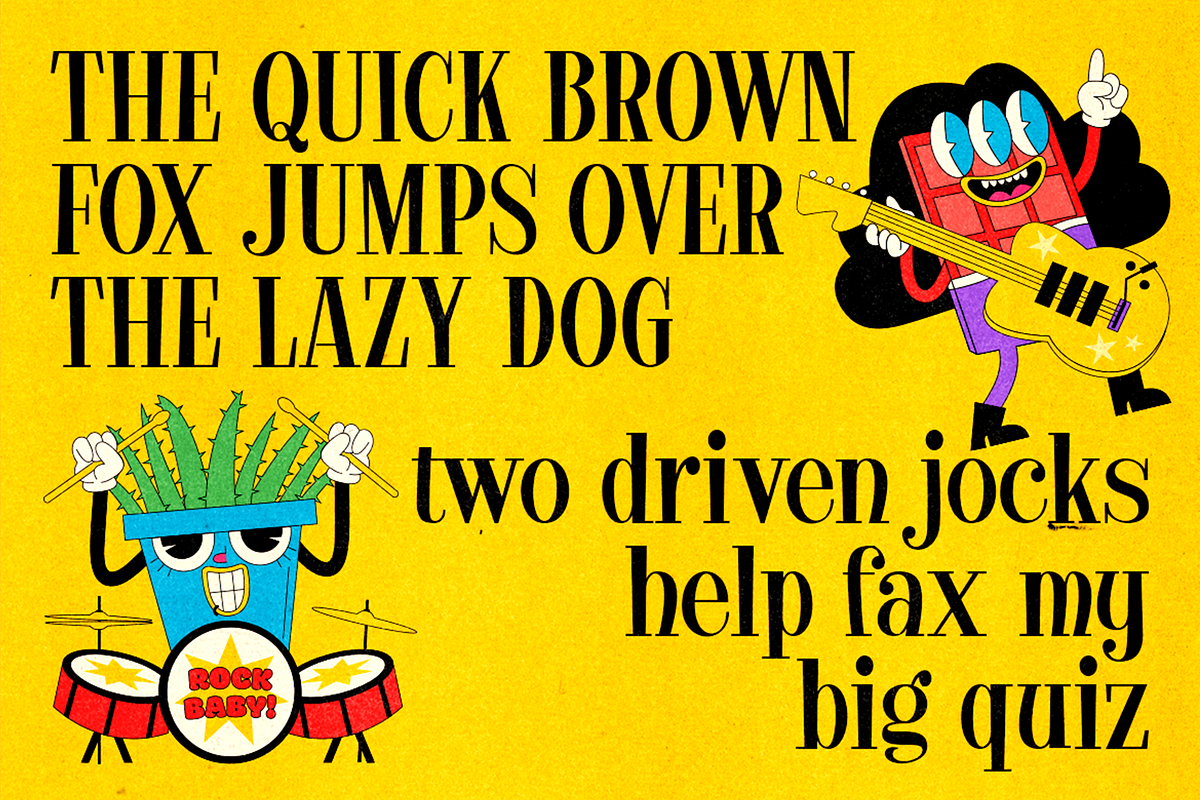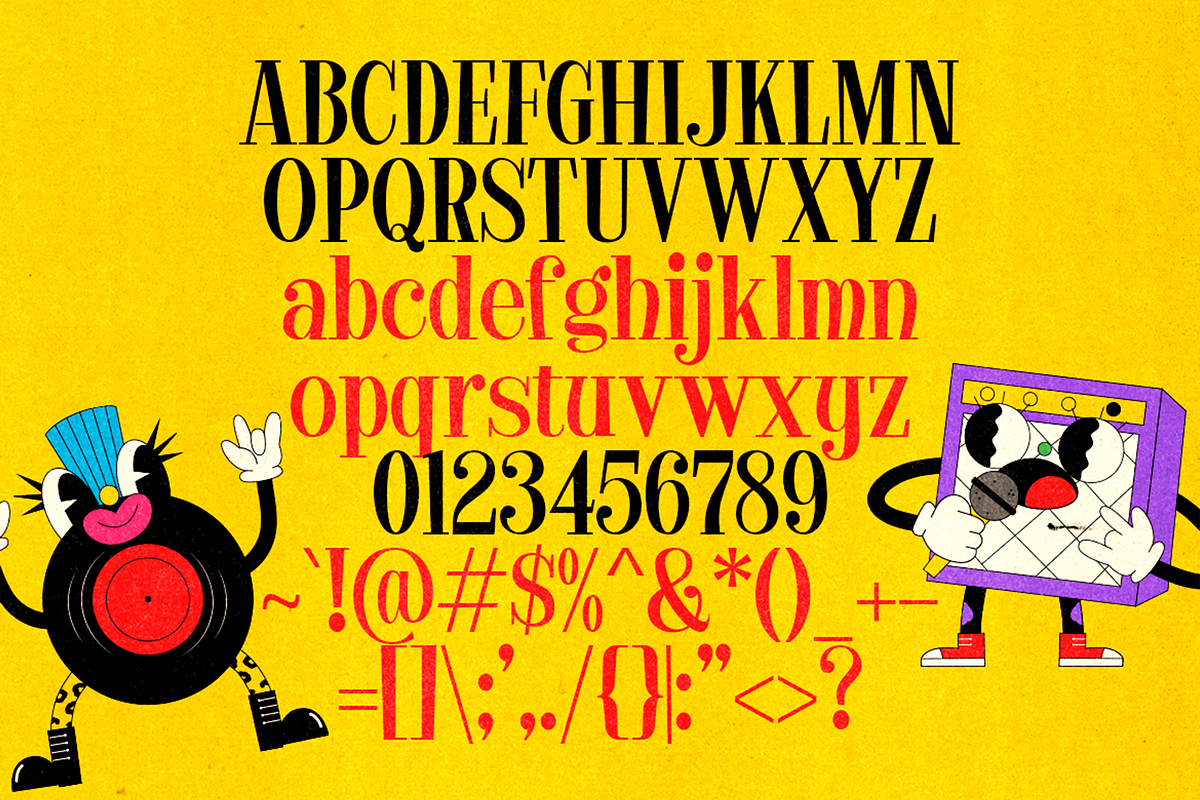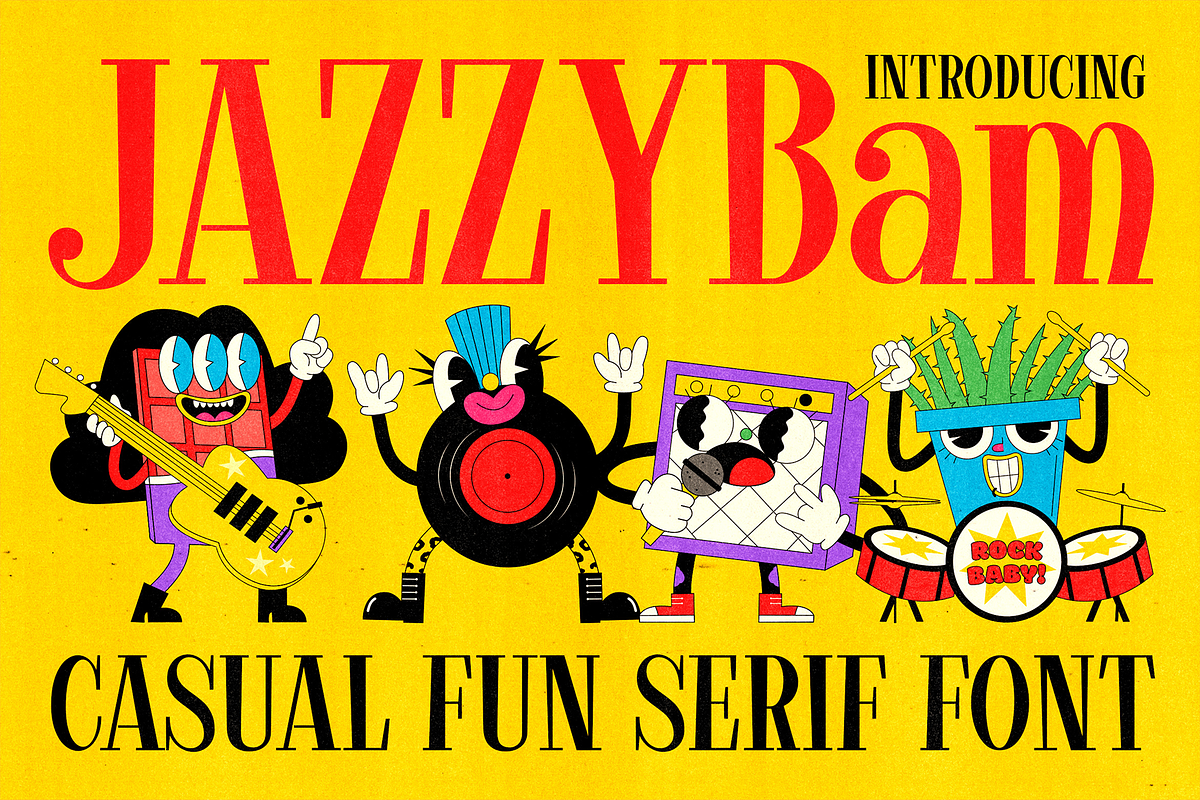
Jazzybam – Comical Serif Fonts
Jazzybam is a retro serif font inspired by vintage comics and cartoons from the 60s. Referenced from comic books, packaging, toys, and a lot of playful yet casual visual designs back in the day.
Perfectly fit for posters, band merchandise, logo, branding, movie title, serials, comics, album artwork, cover artwork, music projects, and many more.